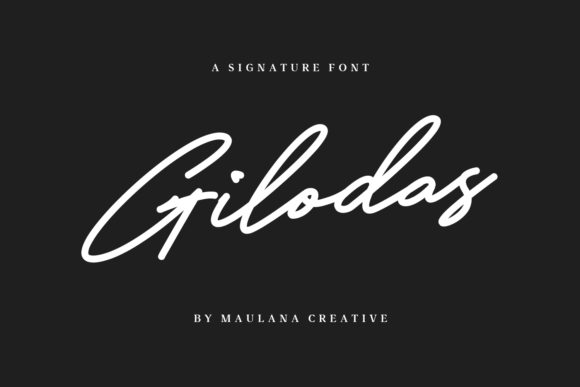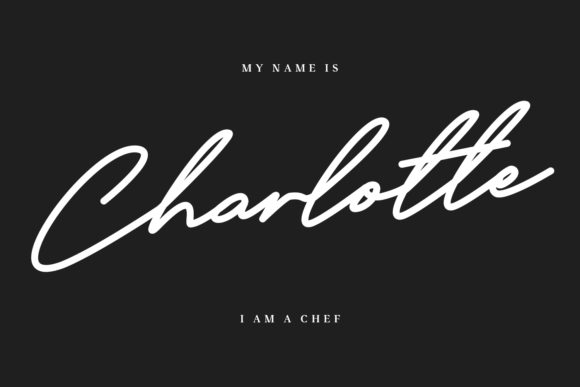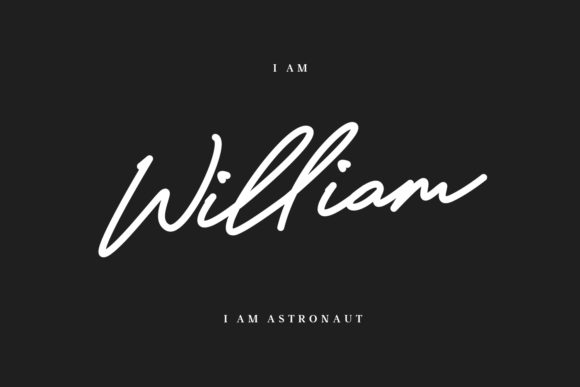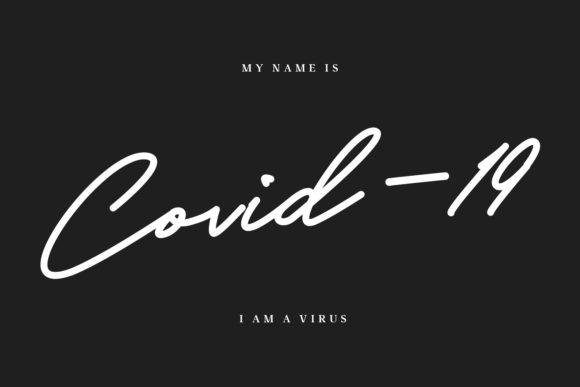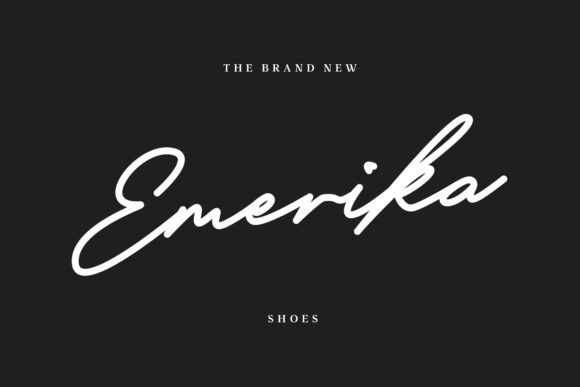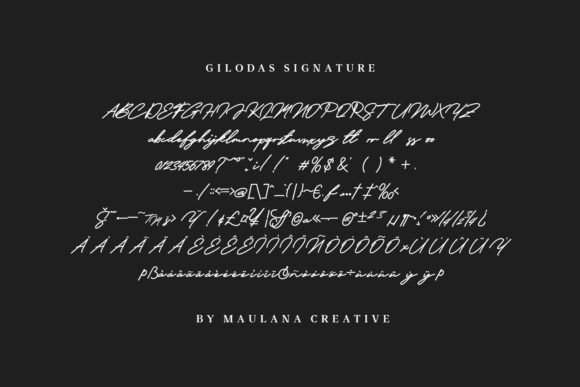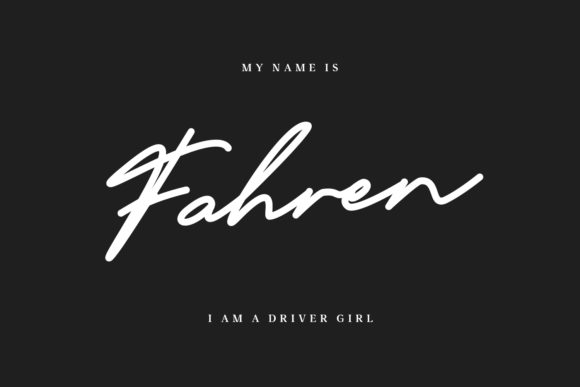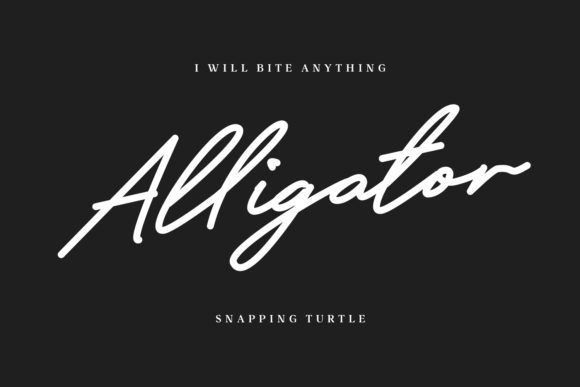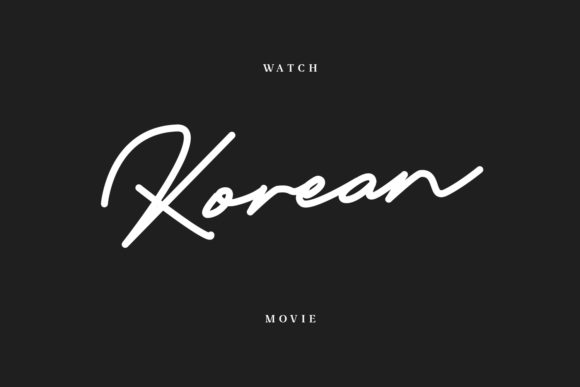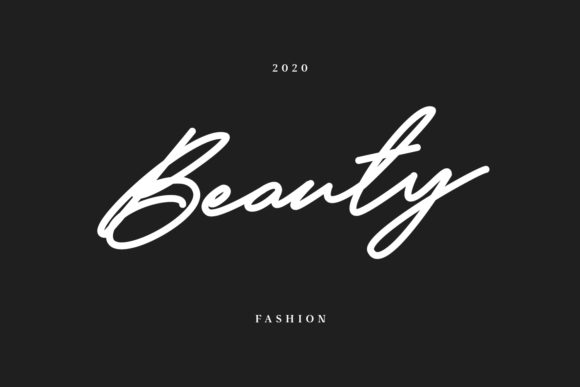
Gilodas Font
Gilodas feels equally charming and elegant. This stunning handwritten font is a stylish homage to classic calligraphy. It features a varying baseline, smooth lines, gorgeous glyphs and stunning alternates.